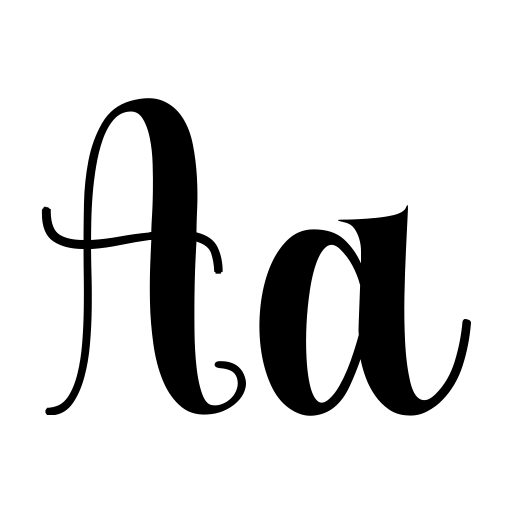
Already Font is a playful, modern script typeface with flowing, lively letterforms that mimic elegant handwriting. Its lively strokes and varying thicknesses give it a friendly, approachable vibe, making it perfect for creative projects, invitations, branding, and casual yet stylish headlines. This font works well where you want to convey personality and warmth while maintaining a fresh, contemporary look.
Already Font
About Already Font